Elevate your creative projects with this curated selection of premium fonts. Meticulously crafted, they blend timeless sophistication with modern clarity, adding a distinguished feel to high-end branding, editorial layouts, invitations, and any visual content that demands grace and authority.
Shealth Font
Shealth is a classic serif font with elegant swashes and delicate curls. Perfect for luxury logos, fashion editorials, and sophisticated wedding designs.
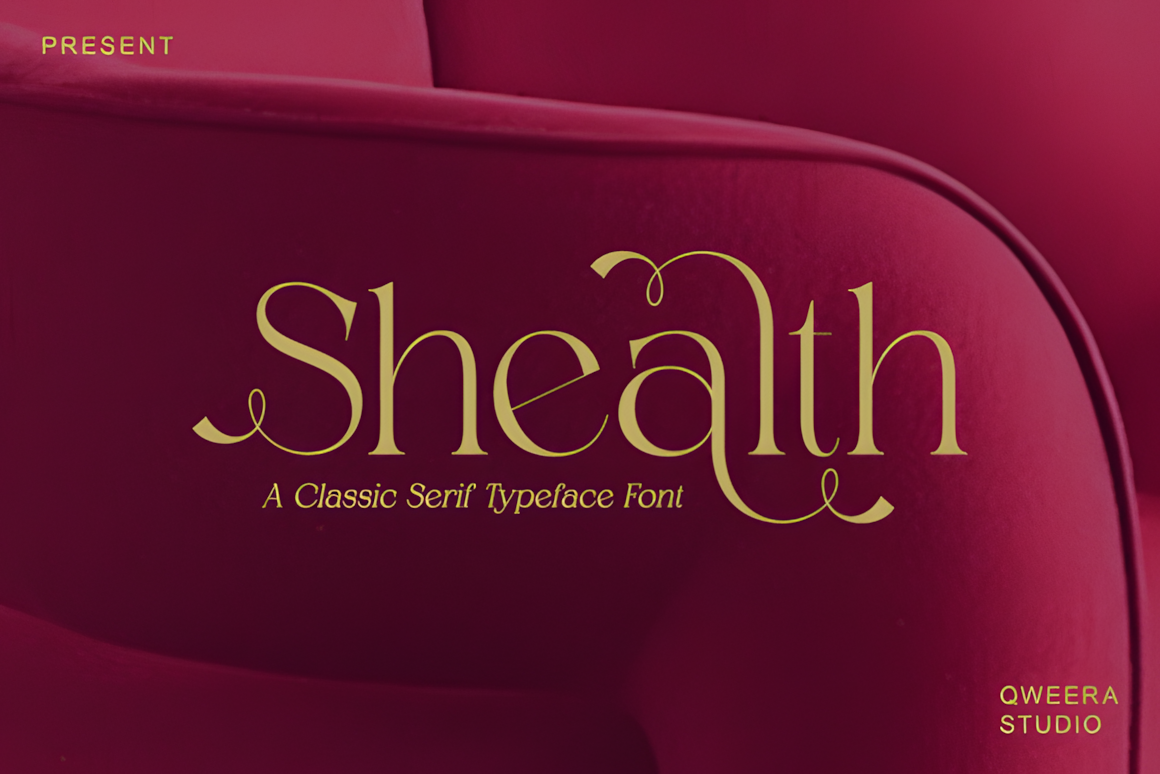
Monkey Font
Monkey is a bold yet sophisticated sans serif with chunky, extended characters. Perfect for logos, branding, and packaging, it adds strong visual impact to any design.
Acollia Font
Acollia is an elegant modern serif that blends classic charm with contemporary design. With refined details and excellent readability, itβs perfect for logos, packaging, and editorial projects that need a polished, luxurious feel.
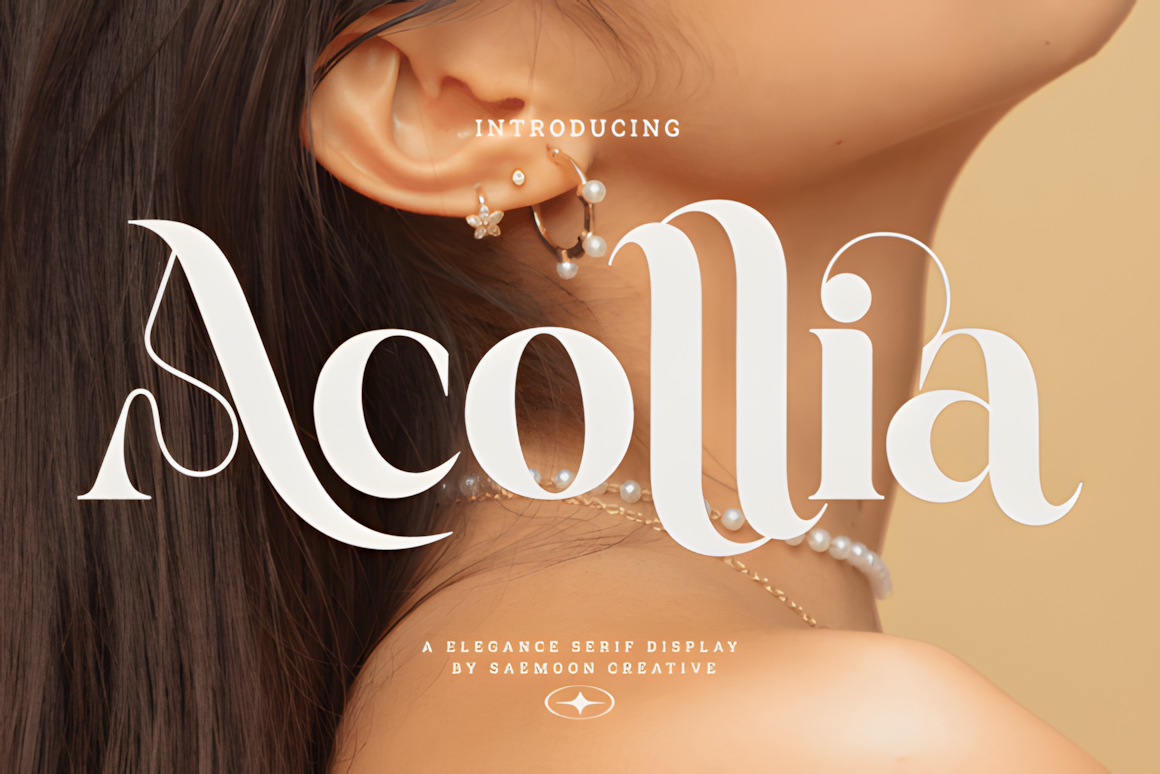
Aveton Font
Aveton is a modern sans serif font designed for professional branding and corporate logos. With clean lines, smooth curves, and a minimal style, it delivers a bold, confident, and timeless look.
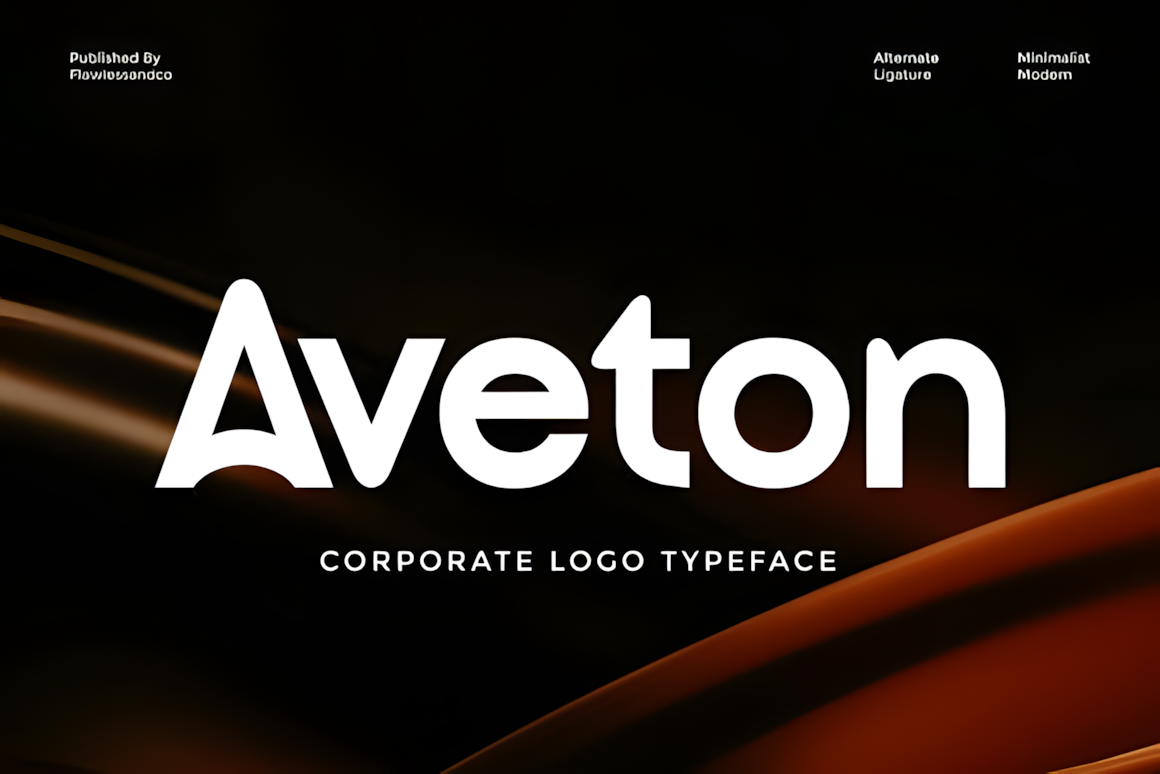
Ark Raised Font
Ark Raised is an ornate Victorian serif font with decorative swashes that blends classic grandeur with dark fantasy. Perfect for fantasy novels, game branding, logos, posters, and premium designs that need a luxurious, dramatic, and majestic feel.
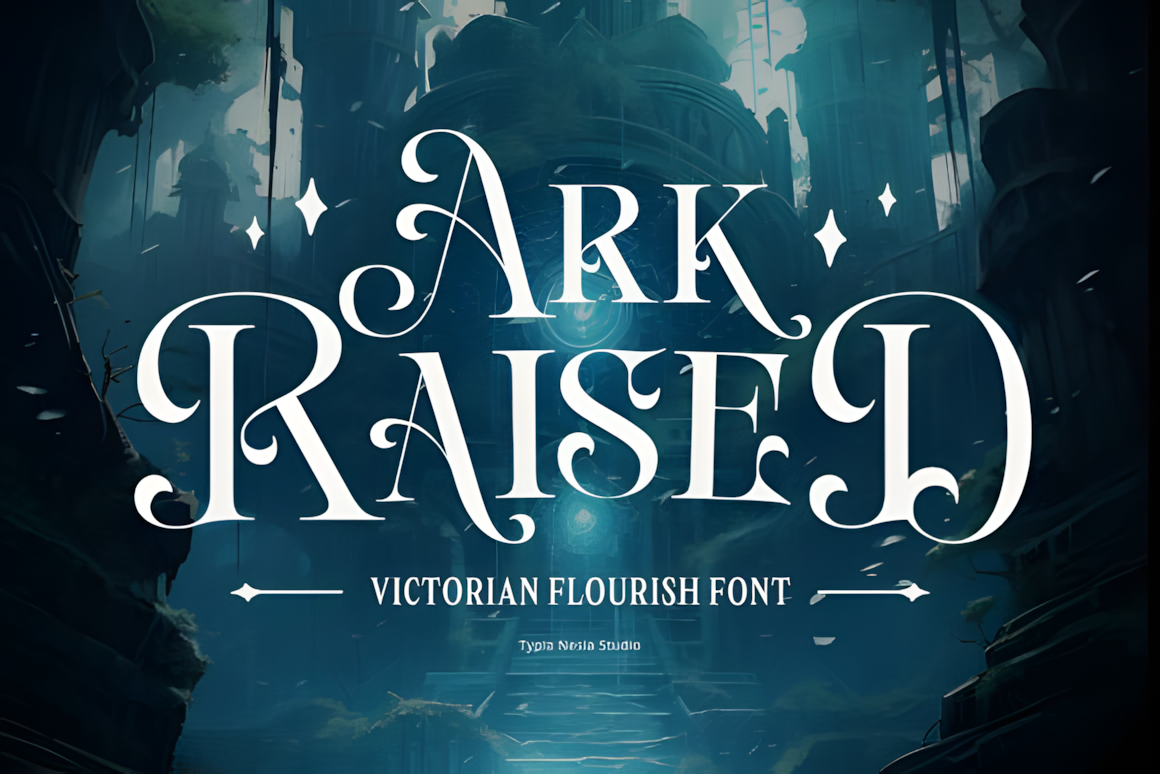
Hanna Font
Hanna is a clean and elegant serif font inspired by minimalist logo styles. Perfect for branding, logos, invitations, brochures, videos, beauty designs, and modern layouts.
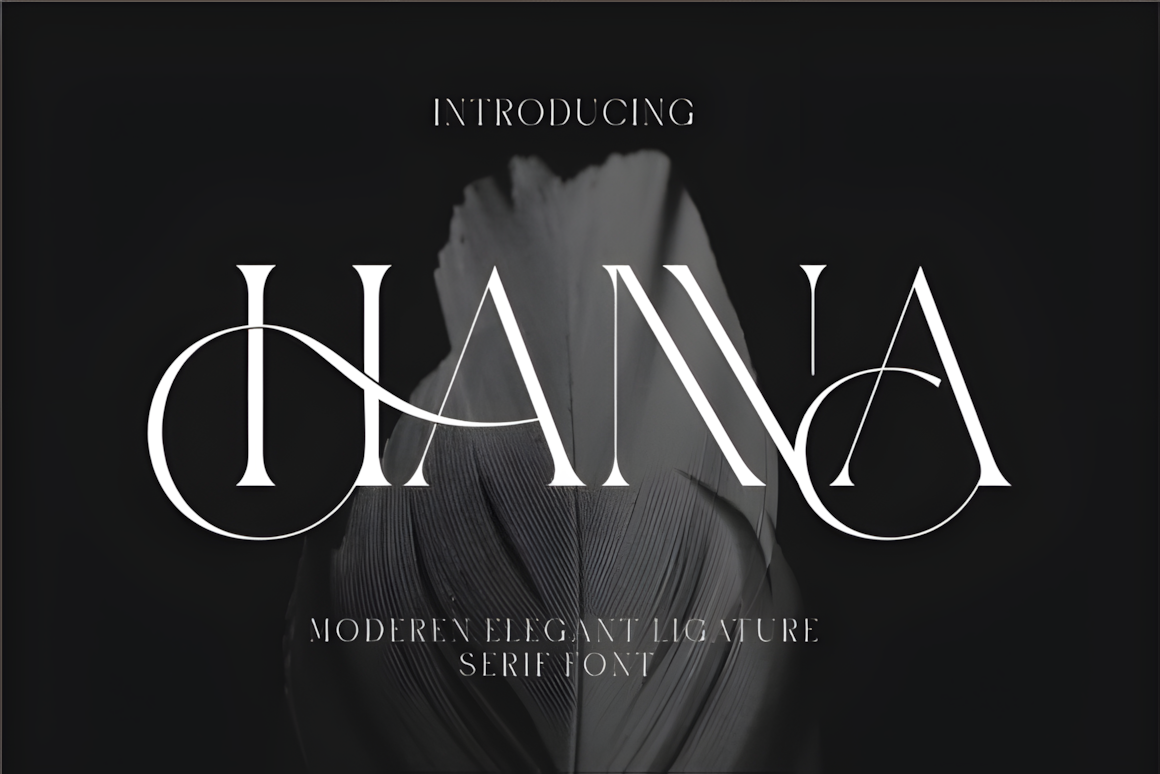
Regain Font
Regain is a bold slab serif font that combines vintage power with modern confidence. Ideal for headlines, logos, branding, packaging, and editorials, it delivers strong character and a commanding visual presence.
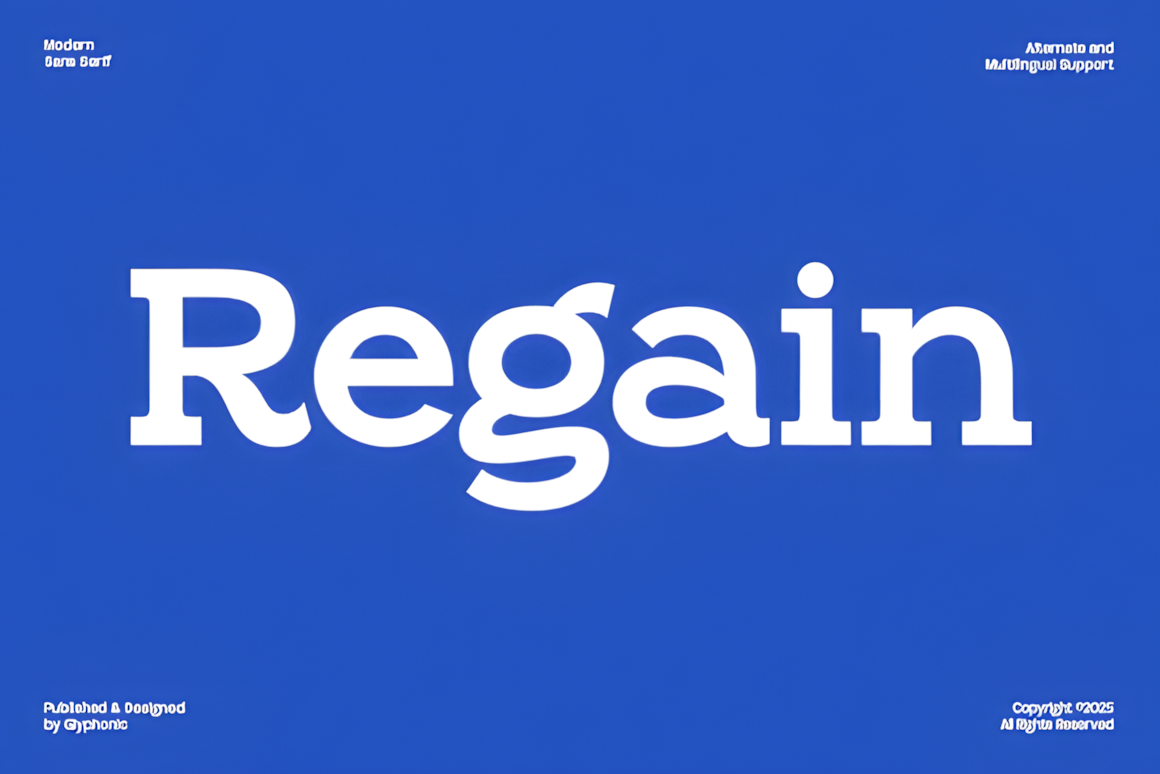
Creative Vintage Font
Creative Vintage is a versatile duo font combining bold display and elegant script styles. Its unique design adapts seamlessly to various projects, making it perfect for logos, branding, posters, and more.
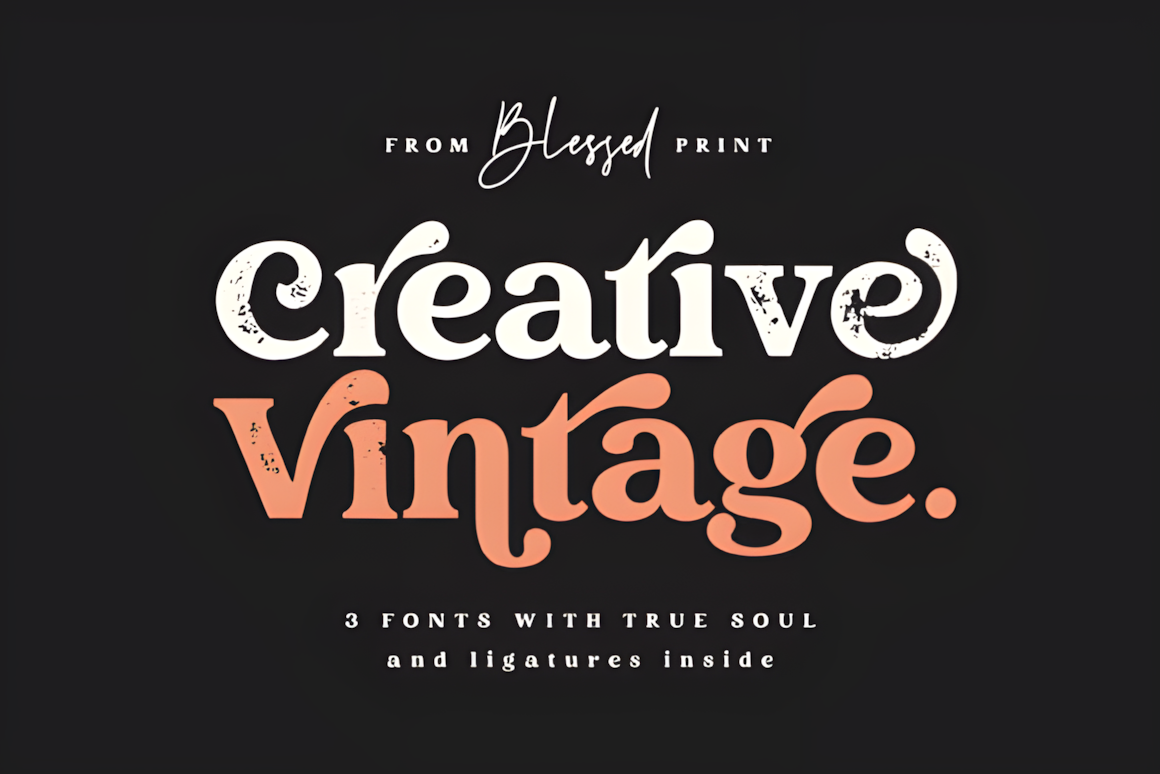
Laura Font
Laura is a clean, ultra-condensed sans serif font with a chic, modern-vintage vibe. Its tall, slender letterforms and smooth lines make it perfect for luxury branding, fashion magazines, and high-end packaging. Includes Regular and Outline styles with elegant ligatures for versatile, sophisticated design.
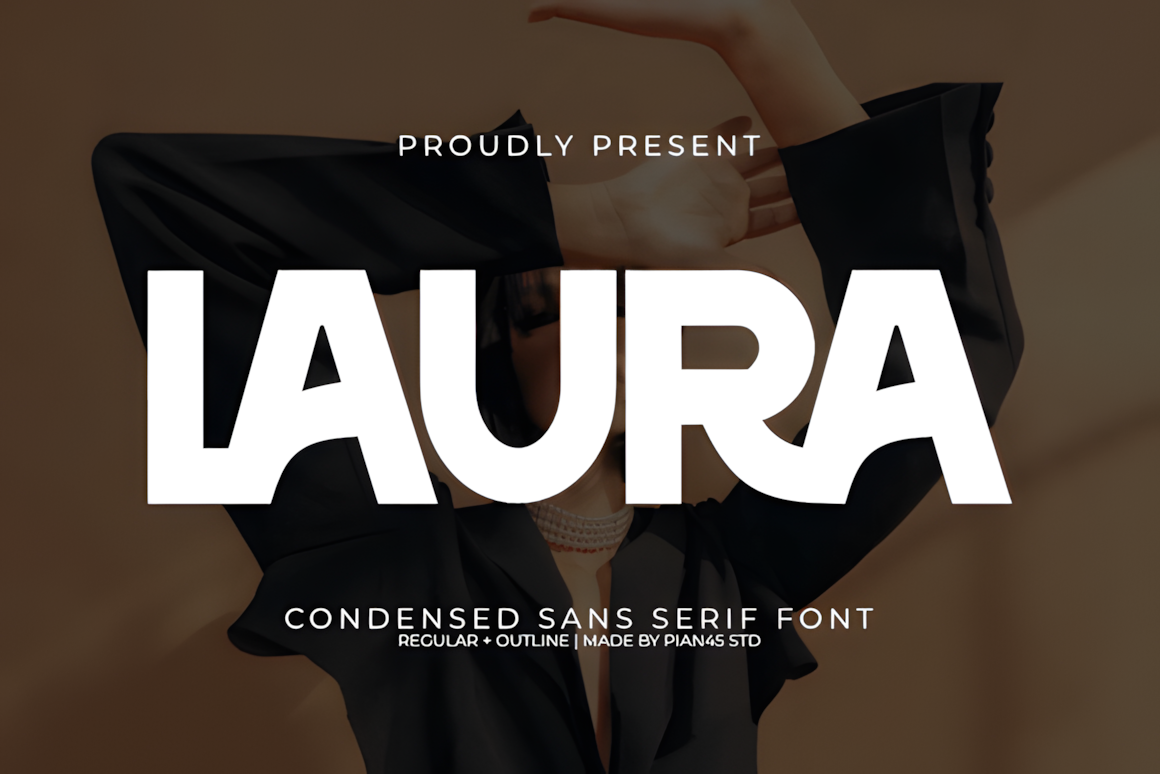
Strova Font
Strova is a refined serif font that blends classic calligraphic elegance with a fresh, contemporary feel. Perfect for elevating branding, editorial layouts, invitations, and sophisticated design projects.
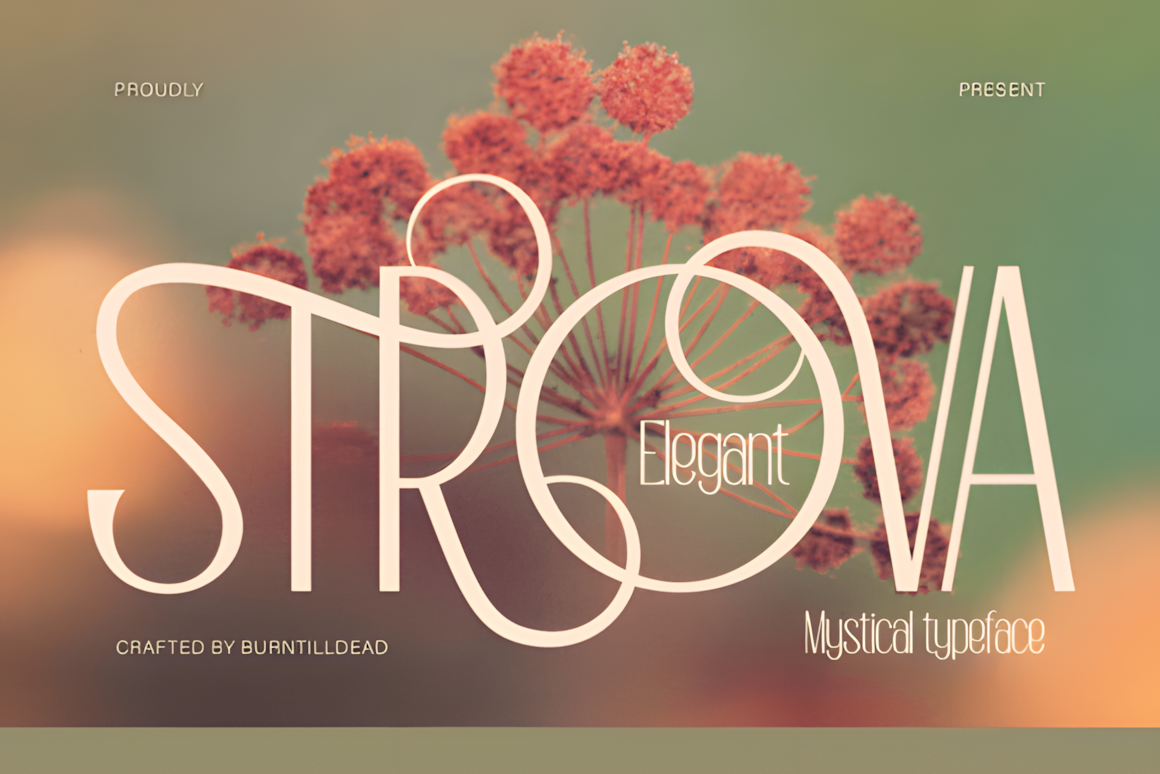
Dorgan Font
Dorgan is a bold, modern-retro serif font with playful charm, ideal for boho-themed projects. Perfect for posters, branding, logos, apparel, business cards, quotes, and more, with alternate characters adding versatile design options.
Moon Creme Font
Moon Creme is an elegant serif font that fuses timeless sophistication with vintage charm and a modern twist. With meticulously crafted characters, itβs perfect for designers seeking a refined, classy, and nostalgic aesthetic.
Timeless Elegance & Premium Appeal
This luxury font collection combines sophistication, clarity, and visual harmony. Each font enhances your design with refined style and lasting appeal, helping your work stand out with grace and professionalism.